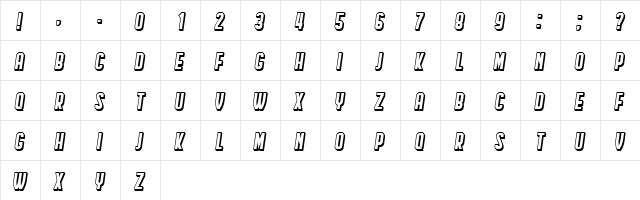
Hindenburg Condensed Shadow Italic
Design Context for Hindenburg Condensed Shadow Typeface
Hindenburg Condensed Shadow brings ornamental detail and strong personality to headlines and identities, where visual impact matters more than quiet functionality. Its italic angle brings a sense of urgency and motion to the letterforms.
Font Pairing: Pair with a clean neutral sans-serif for body copy to let Hindenburg Condensed Shadow's character lead without overwhelming the composition.
Pro Tip: Treat Hindenburg Condensed Shadow as the centrepiece of your typographic hierarchy. One strong heading set in a decorative face can carry an entire layout.